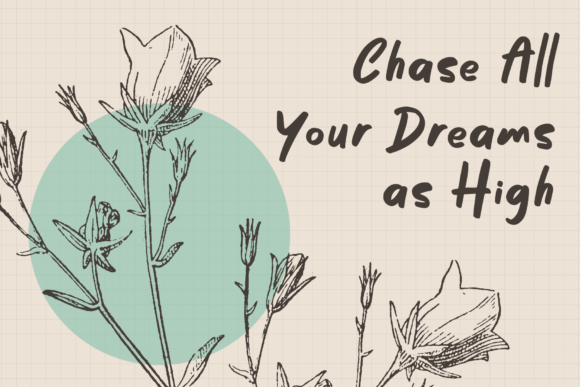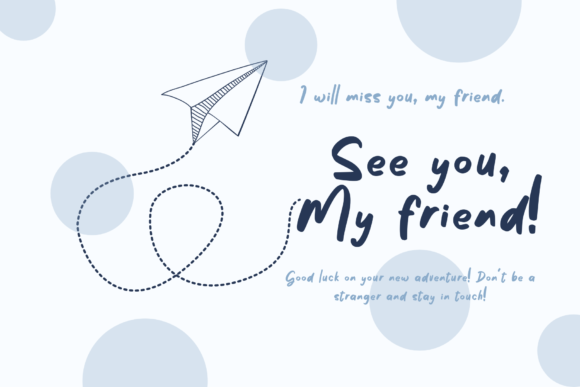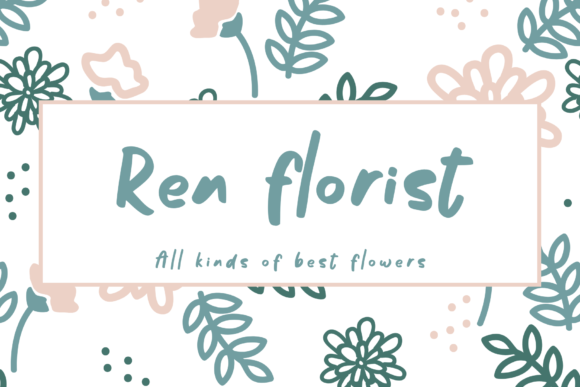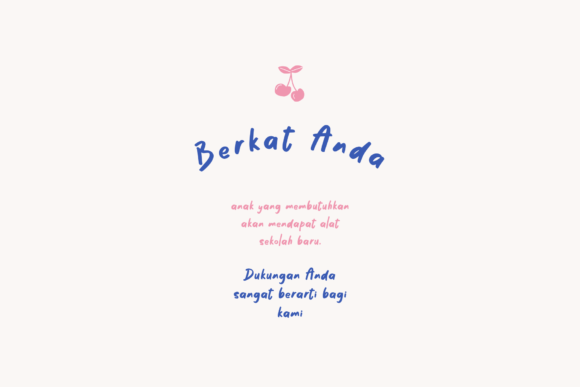
About Dream Catcher Font
Dream Catcher is a quirky, asymmetrical and simple lettered handwritten font that can be used for all chalkboard quotes or teaching material! Its authentic look will add a personal and realistic feel to your designs.